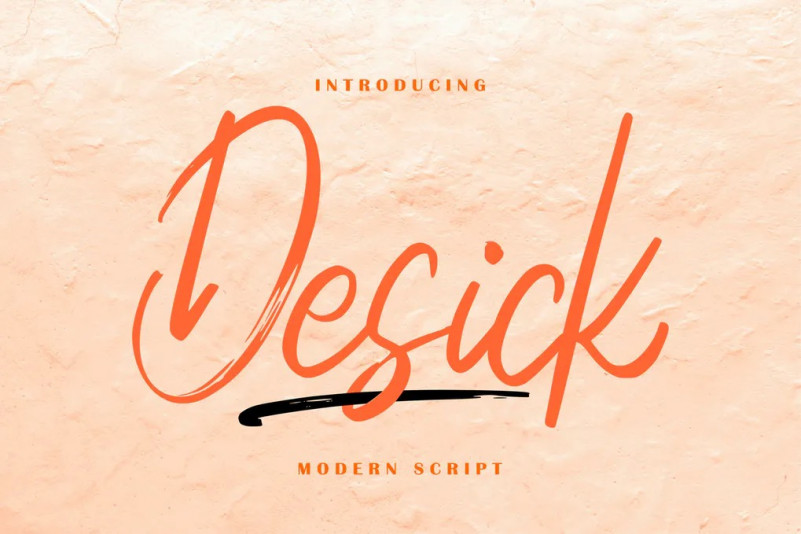
Desick Font
Desick Modern Script – is a new font that is authentic and suitable for many of your visual needs, like for invitation, greeting cards, branding materials, business cards, quotes, posters, and more!